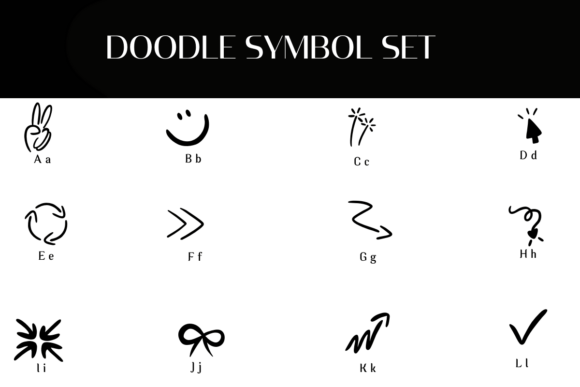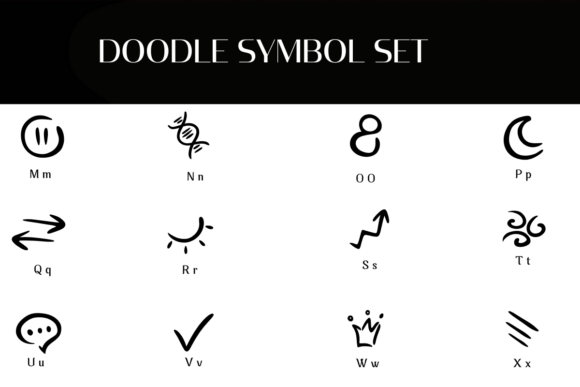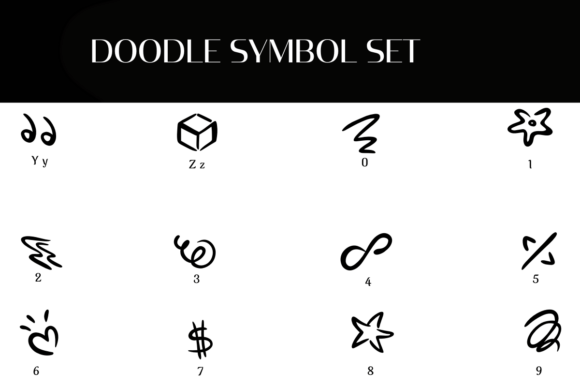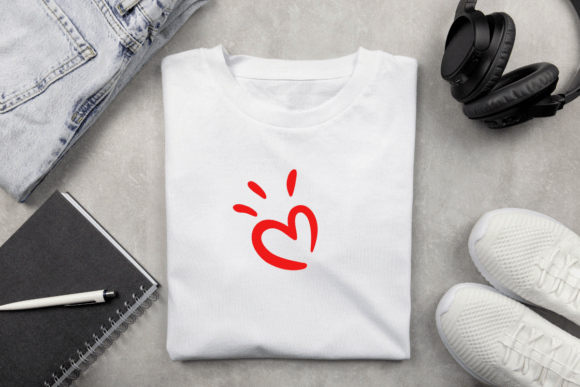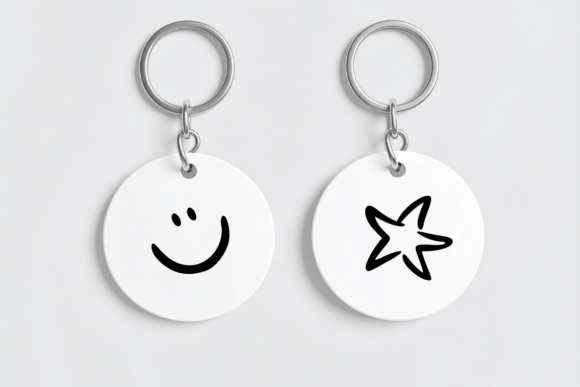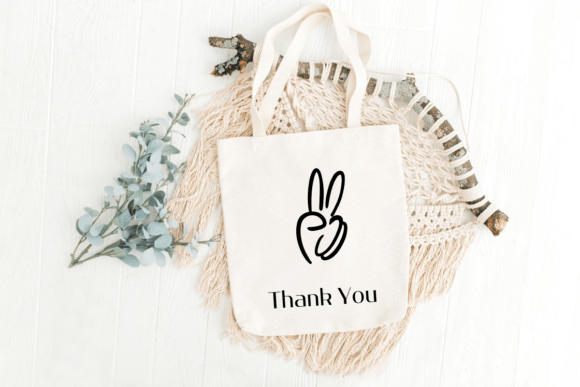
Adding a Personal Touch to Your Designs
Have you ever found yourself doodling in the margins of a presentation or adding a quirky flourish to a brand’s packaging? Those little creative moments can make all the difference in breaking through the clutter and connecting with your audience. But what if you could take that same playful energy and infuse it into your digital workspace?
That’s where the Doodle Symbol Set Font comes in – a charming library of organic dingbats that bring a hand-drawn soul to your designs. With its authentic marker-stroke texture and wide range of quirky icons, this font is the perfect companion for designers looking to add a human touch to their projects. Whether you’re a social media manager, bullet journal enthusiast, or web designer, the Doodle Symbol Set Font is a valuable addition to your toolkit – and it’s easy to see why.
Doodle Symbol Set Font Key Features
- Unique Characteristics: The Doodle Symbol Set Font features a vast collection of hand-drawn doodle symbols, including shapes, patterns, and icons, making it ideal for artists, designers, and educators.
Doodle Symbol Set Font Review
I recently had the chance to work with the Doodle Symbol Set Font, and I must say it’s been an interesting experience. ✨ The font’s hand-drawn, playful nature makes it perfect for adding a touch of whimsy to your designs. The variety of doodle-inspired symbols and icons is impressive, offering endless possibilities for creative expression.
- ✨ The font’s organic feel is perfect for brands that want to convey a sense of playfulness and approachability.
- ✨ The symbol set is comprehensive, covering a wide range of subjects and occasions.
- ✨ The font is highly customizable, allowing you to adjust line width, stroke color, and more.
However, I do have some concerns: ⚠️ The font’s readability can be a bit of a challenge, especially in smaller sizes. Some of the symbols may be difficult to distinguish from one another. Additionally, the font’s lack of standardization can make it tricky to work with in certain design software.
Overall, I’d say the Doodle Symbol Set Font is a great addition to any designer’s toolkit. While it may not be perfect, its unique charm and versatility make it a valuable resource for anyone looking to add some personality to their designs.
The Doodle Symbol Set Font is ideal for:
- Creating playful and whimsical designs.
- Adding a personal touch to social media graphics and blog posts.
- Designing educational materials and worksheets.